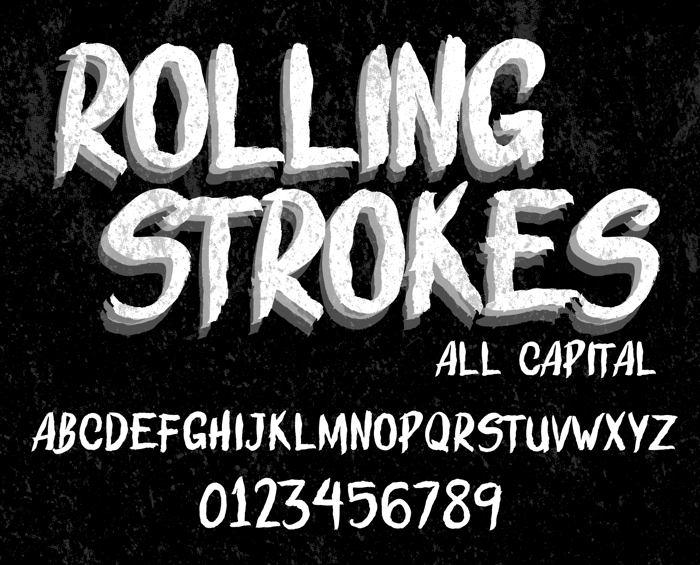
ROLLING STROKES DEMO Font
- Groovy brush inspired font perfect on your school projects, covers, etc.
- Lifestyle street theme font for branding, website, mobile app etc.